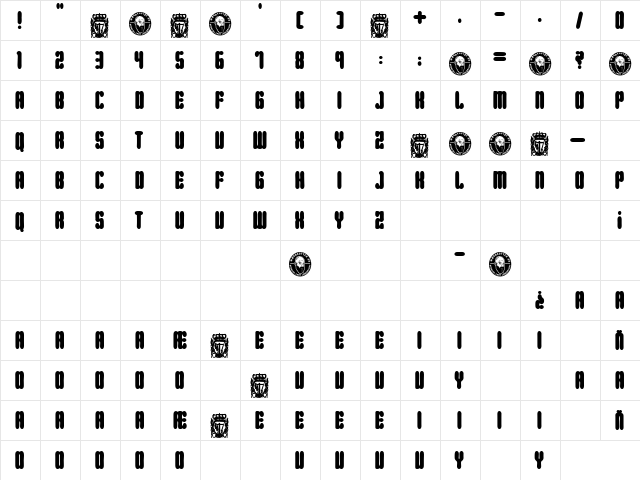
Torquemada in da house Regular
| Designer | Woodcutter Manero |
Design Context for Torquemada in da house Typeface
Torquemada in da house is a composed and adaptable typeface that performs quietly and consistently across a wide range of design contexts.